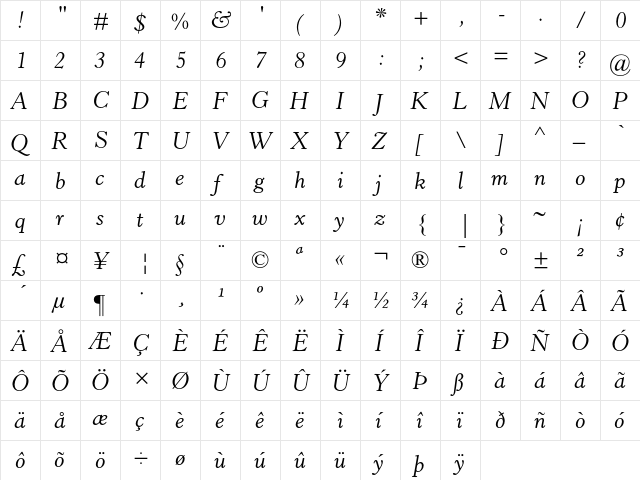
Horley Old Style MT Italic Font Preview
Horley Old Style MT Italic
Horley Old Style MT Italic Font Details
Design Context for Horley Old Style MT Typeface
Horley Old Style MT offers clean, dependable letterforms without strong stylistic allegiance, making it a practical choice for designers who need flexibility. The dynamic lean of this cut emphasises speed and emphasis in any layout.
Pro Tip: Try Horley Old Style MT for annotation and caption copy alongside an upright companion — the contrast in angle creates a dynamic but ordered typographic system.